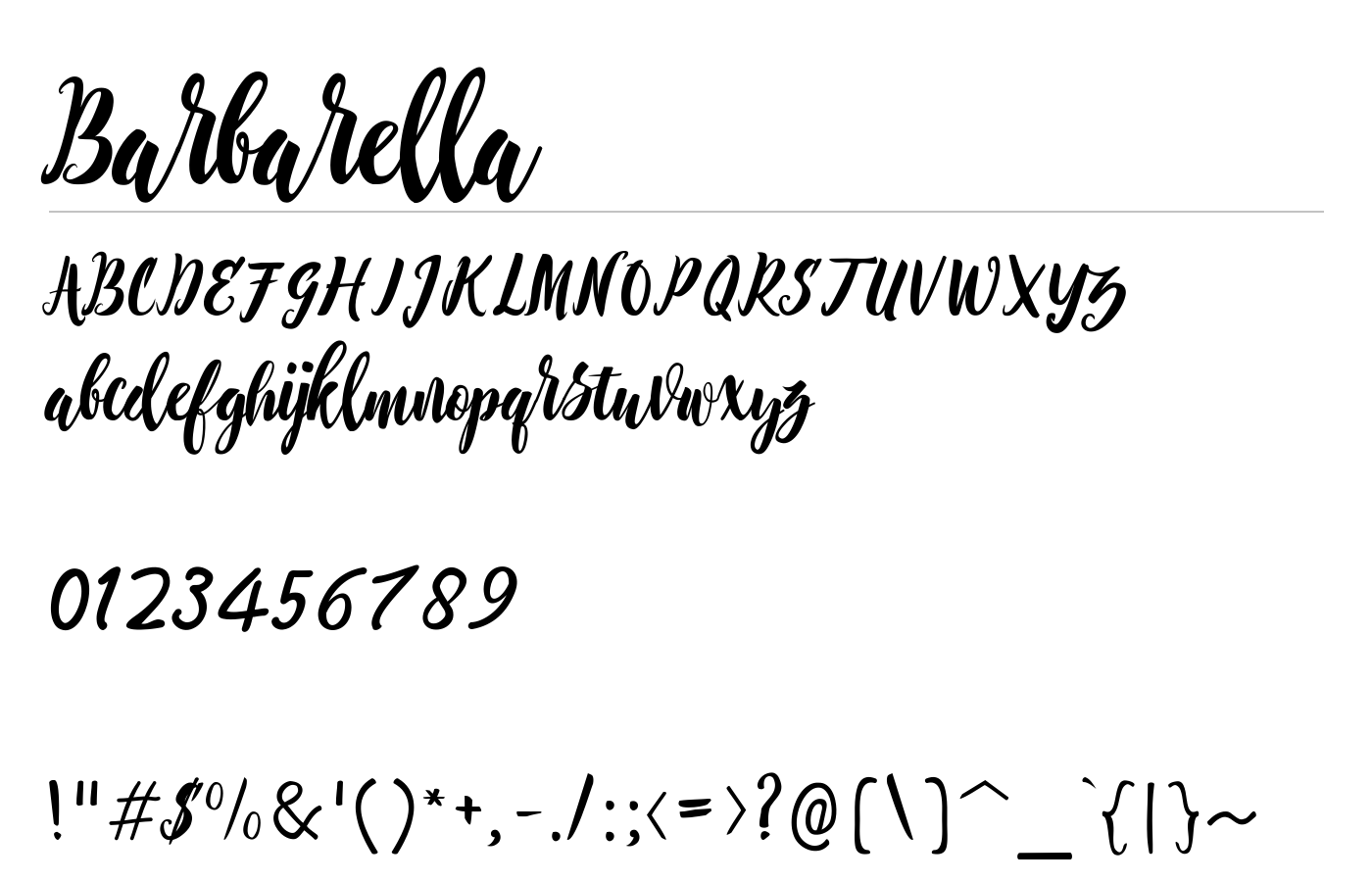
Barbarella is a lively and elegant script font with a smooth, flowing style that exudes a hand-lettered charm. Its moderately high contrast and rounded strokes give it a warm, approachable feel, making it perfect for feminine branding, invitations, and creative headlines where a touch of personality and sophistication is desired. This font shines in designs that seek to balance playful energy with graceful refinement.
Barbarella Font